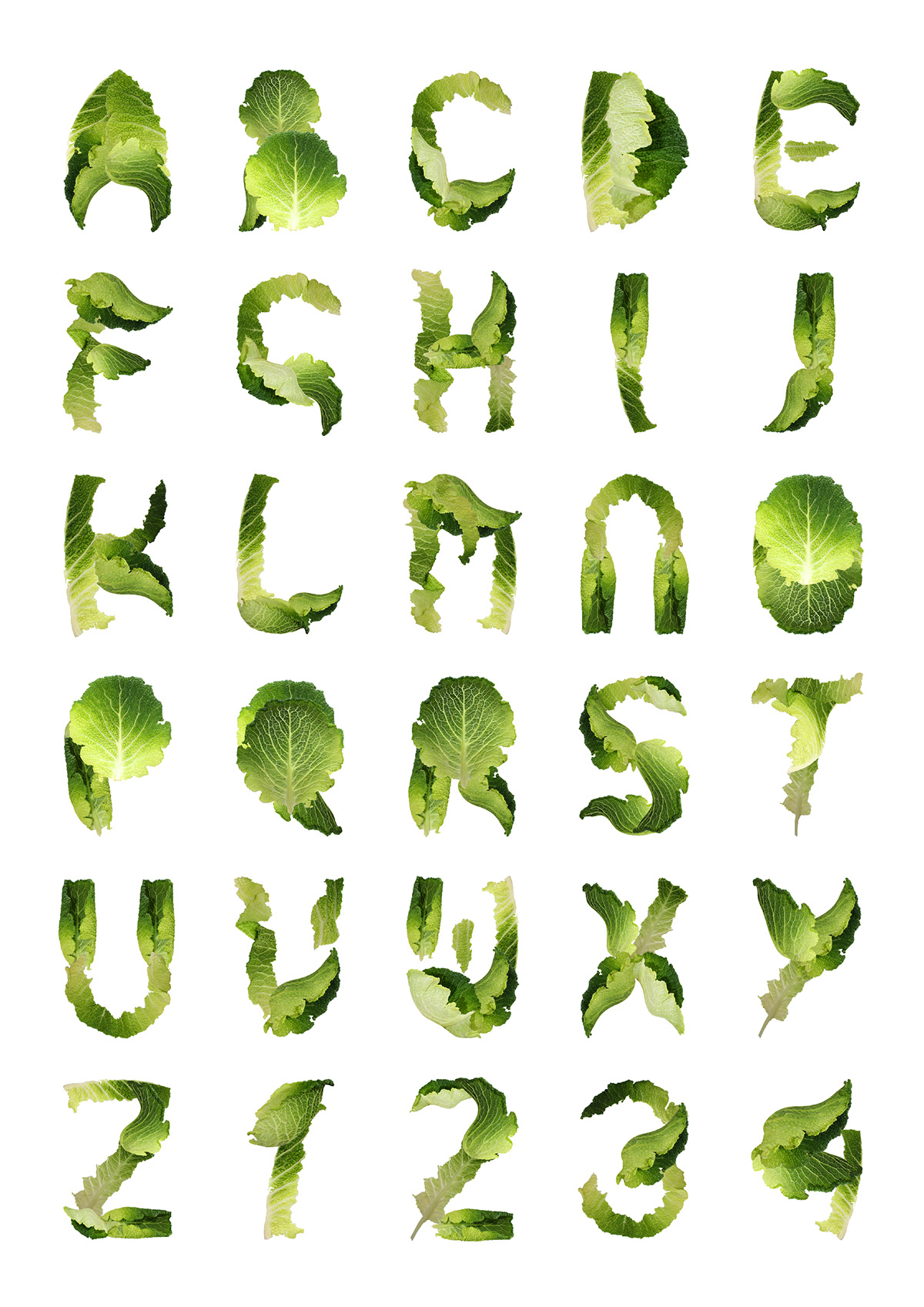
Presenting my latest typeface, Health Kick. Health Kick is picked from my local supermarket and arranged by hand to form 26 letters and 10 numbers. Please view the full suite of characters and a behind the scene video below.